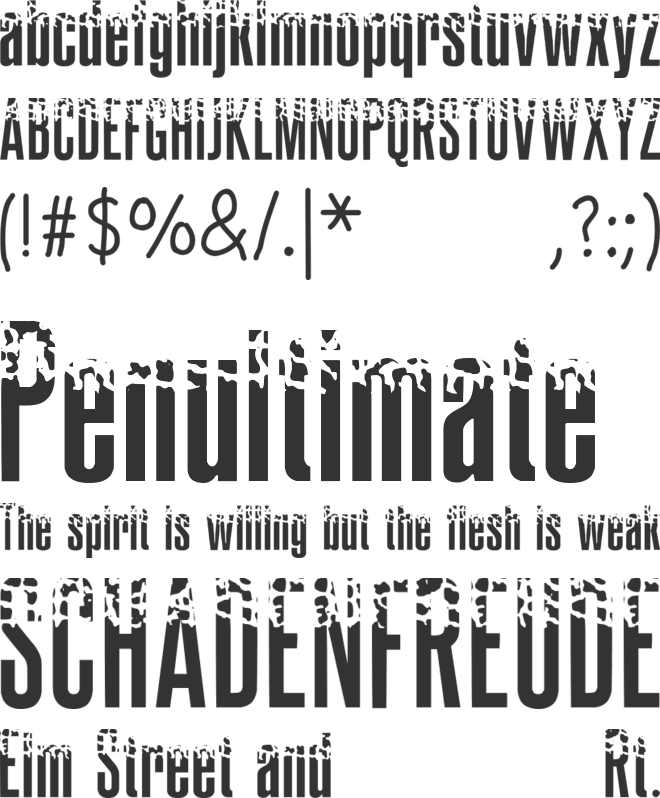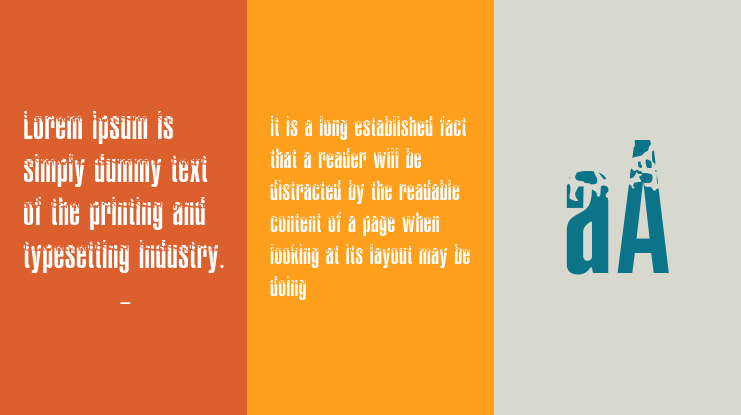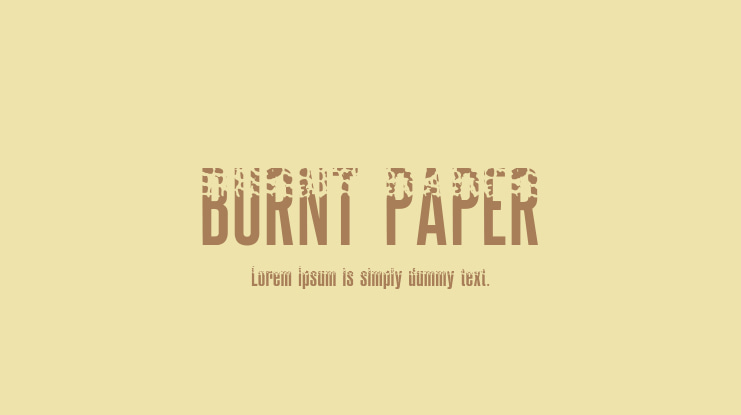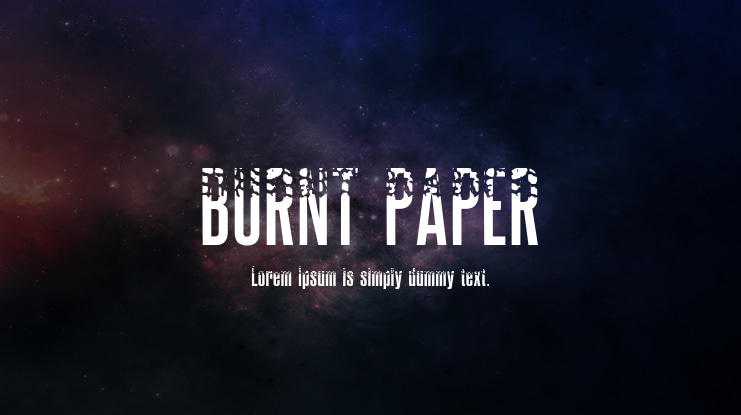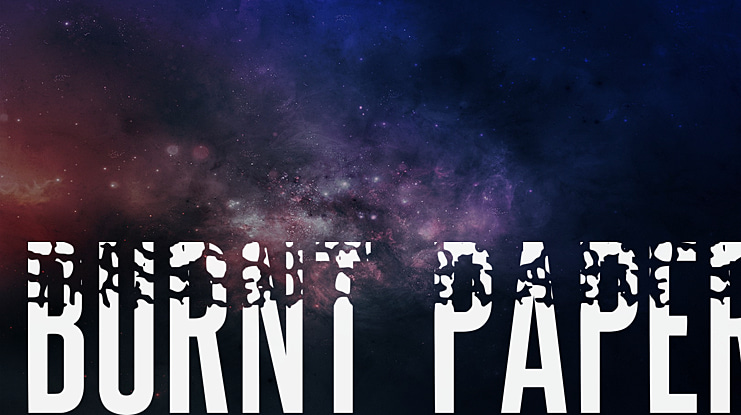
BURNT PAPER Font
I stumbled across this effect whilst trying to create a rock effect for a customized fan-font for the new Alcatraz TV series it looked so much like burnt and charred letters on a piece of paper hence the name.